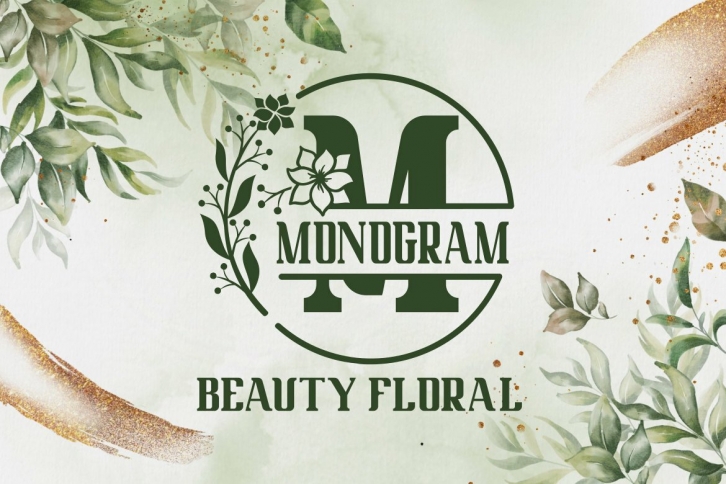
Beauty Floral Monogram is a trendy and unique font with an authentic style. It was designed by NURF Designs and it's a great choice for creative people who need such a font. It was released on January 26, 2021 and the file size is 7.84 MB. Beauty Floral Monogram will add an organic vibe to any design idea!